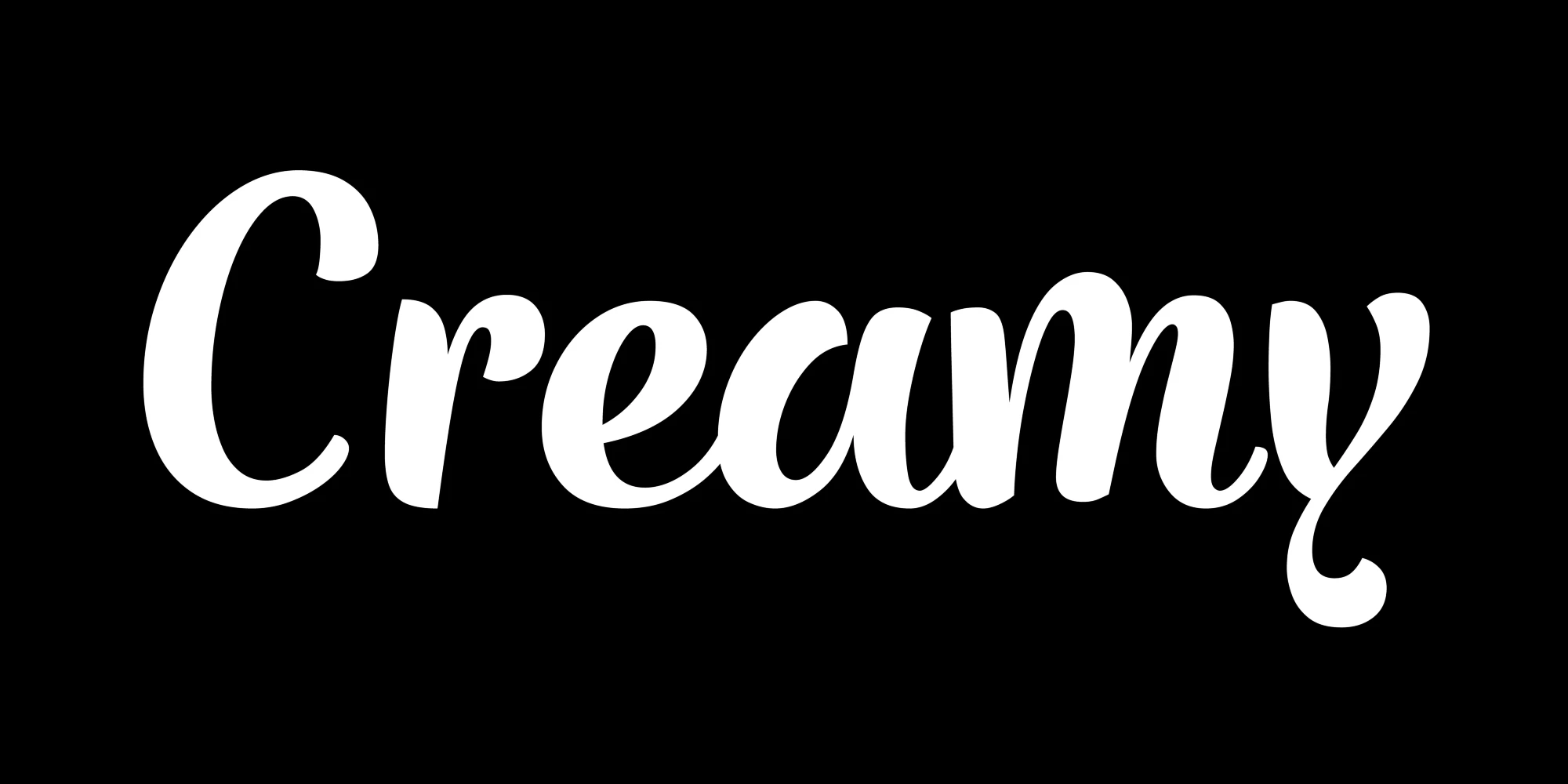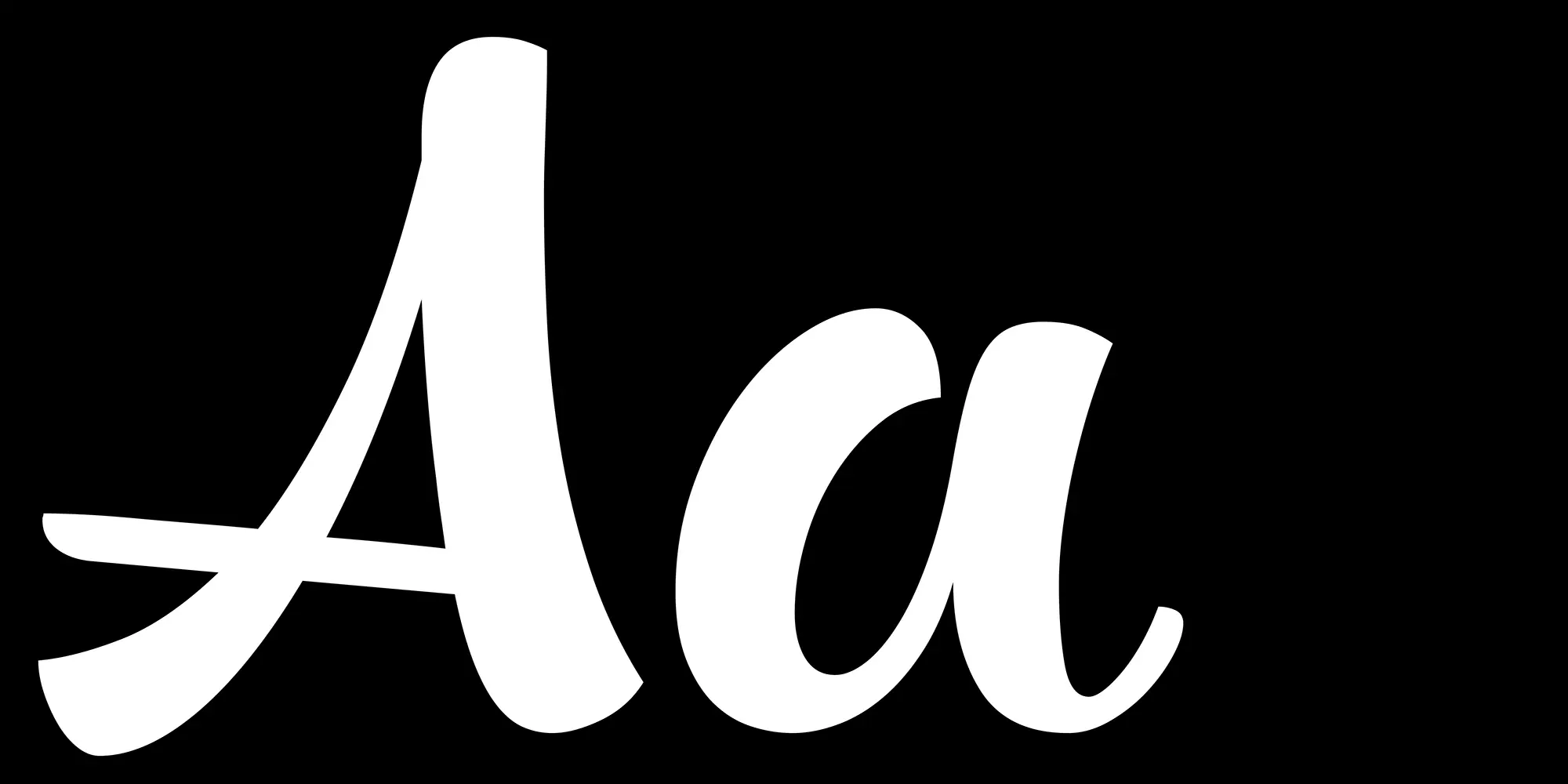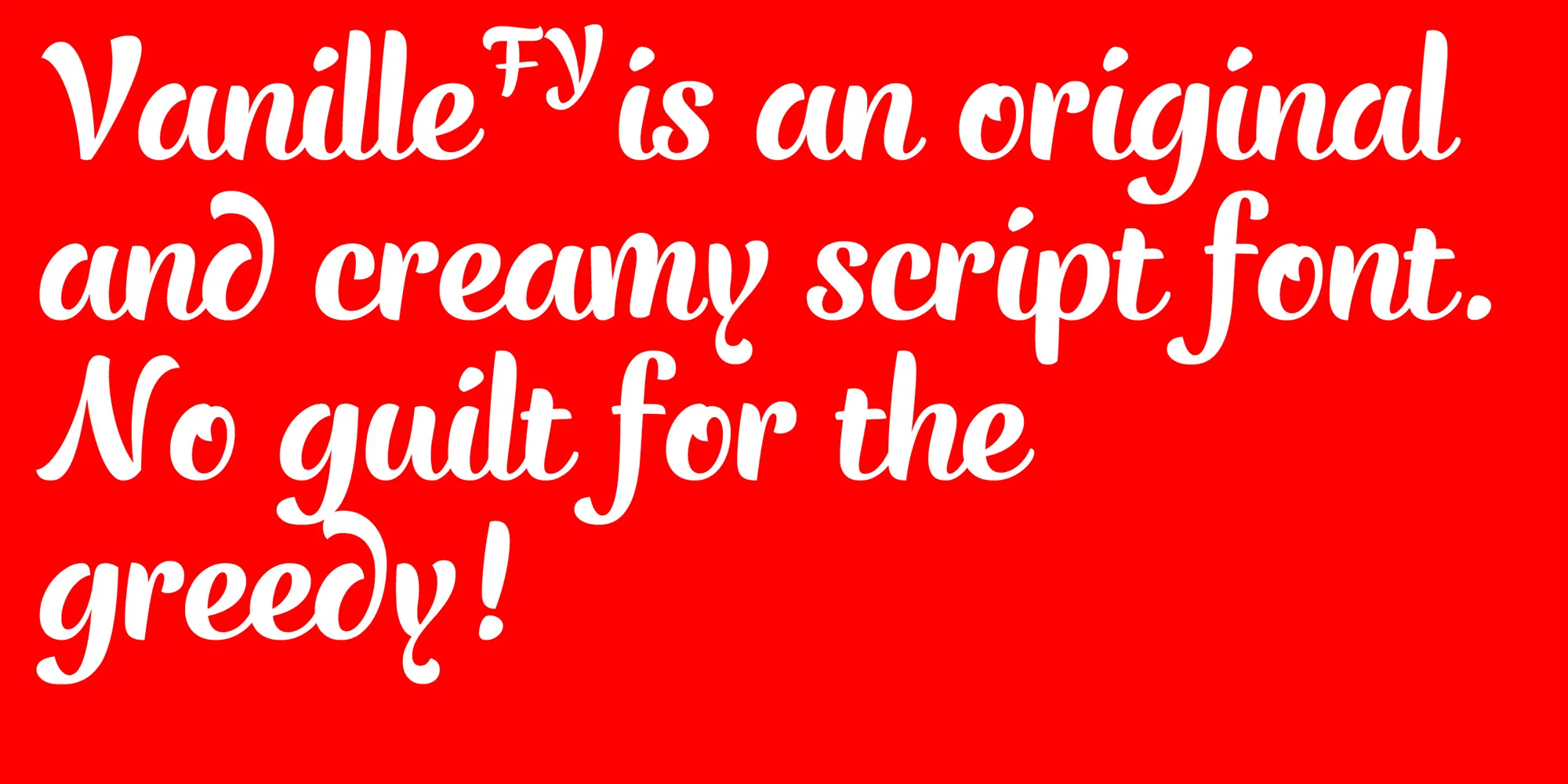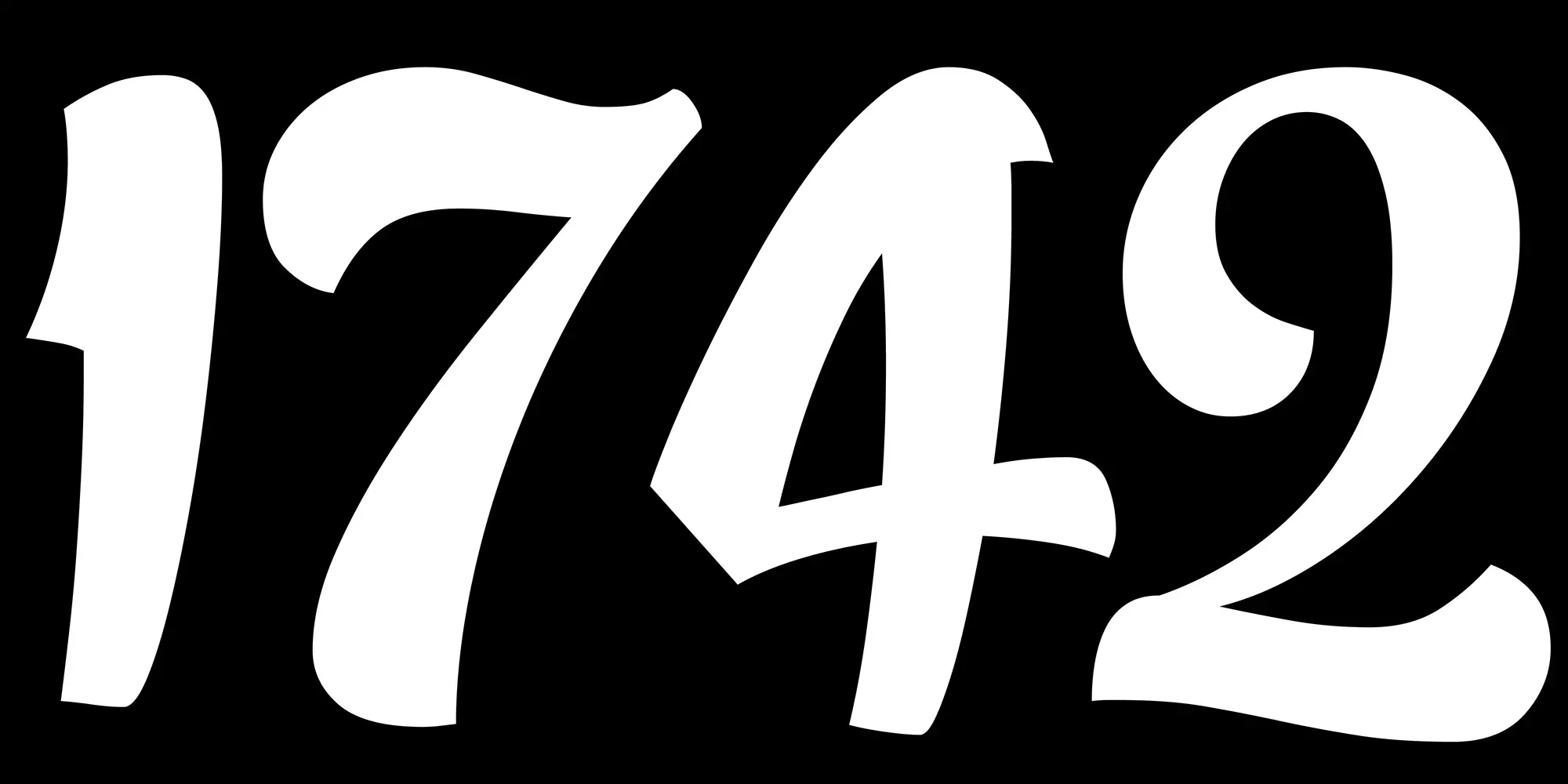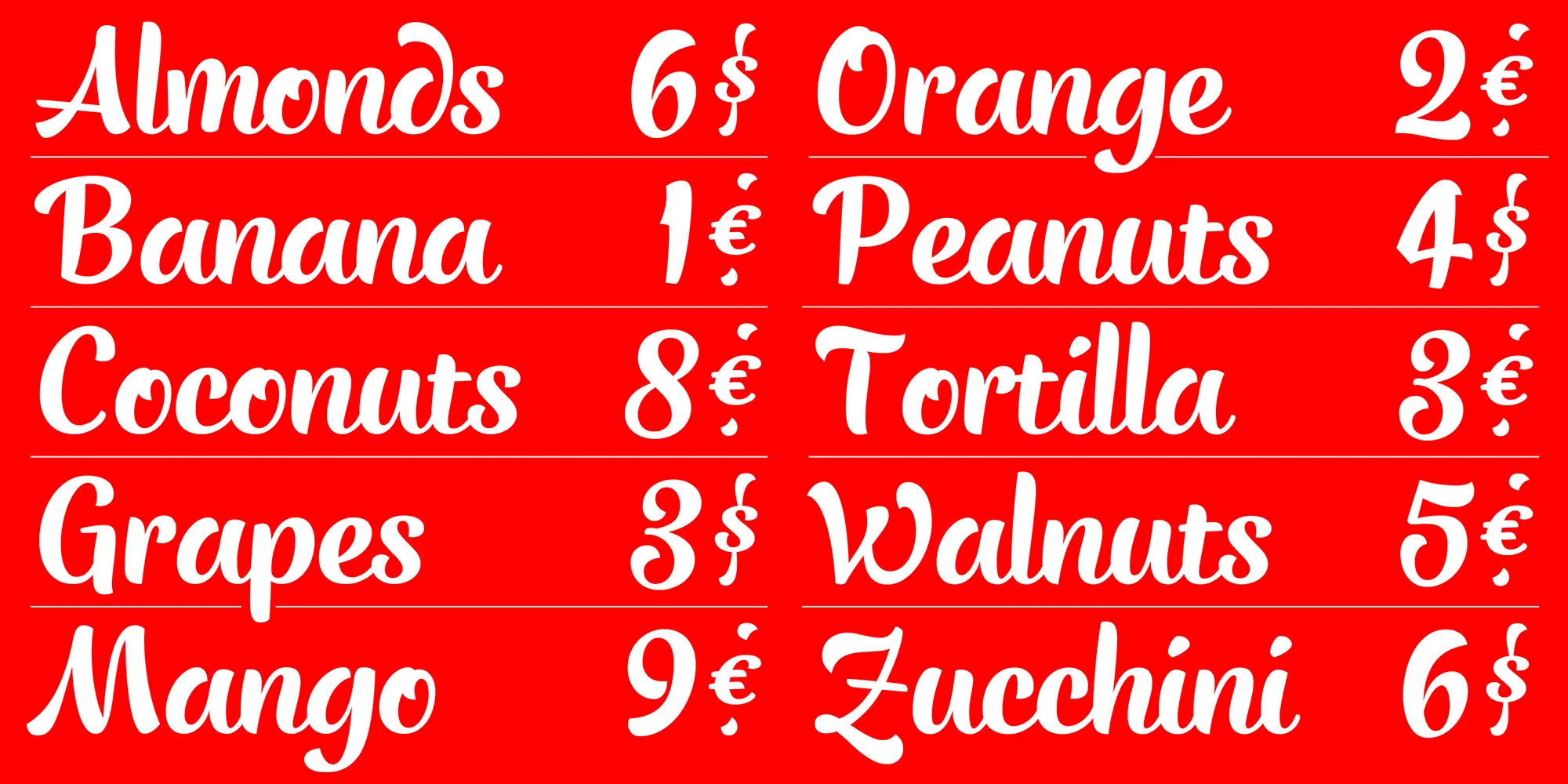
Vanille Font
Vanille FY is a casual upright script full of bounce and charm, blending the smooth flow of brush and ink with the snappy rhythm of hand-lettered sign painting. Playfully refined, its lettershapes dance with an upbeat, crafted energy perfect for children’s book covers, event posters, party invitations, and food packaging. Vanille FY brings lively character to any design, with delight in every stroke.
Features
OpenType Features
- Fractions
- Ordinal Numerals
- Stylistic Sets
- Subscript
- Superscript
![Vanille font by Black[Foundry] — the word “Creamy” in a connected script with bouncy, upright letterforms](https://typographer.io/1/assets/blk:vanille/banner-1.webp:size(2000,1000)?a6c0)
![Vanille font by Black[Foundry] — the letters capital A and lowercase a in a connected script style](https://typographer.io/1/assets/blk:vanille/banner-2.webp:size(2000,1000)?31e5)
![Vanille font by Black[Foundry] — the words “Vanille FY is an original and creamy script font. No guilt for the greedy!” in a connected script.](https://typographer.io/1/assets/blk:vanille/banner-3.webp:size(2000,1000)?5193)
![Vanille font by Black[Foundry] — the numbers 1, 7, 4, and 2 in a connected script style](https://typographer.io/1/assets/blk:vanille/banner-4.webp:size(2000,1000)?eb48)
![Vanille font by Black[Foundry] — a red banner with a white upright connected script listing food items and prices, including “Almonds 6$”, “Orange 2”, “Banana 1”, and “Zucchini 6$”](https://typographer.io/1/assets/blk:vanille/banner-5.webp:size(2000,1000)?3fba)